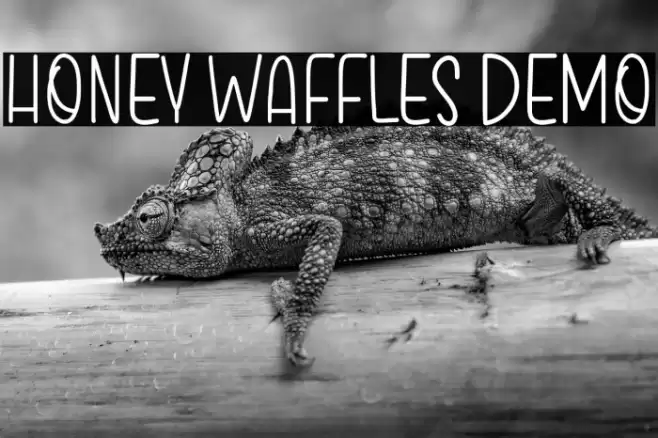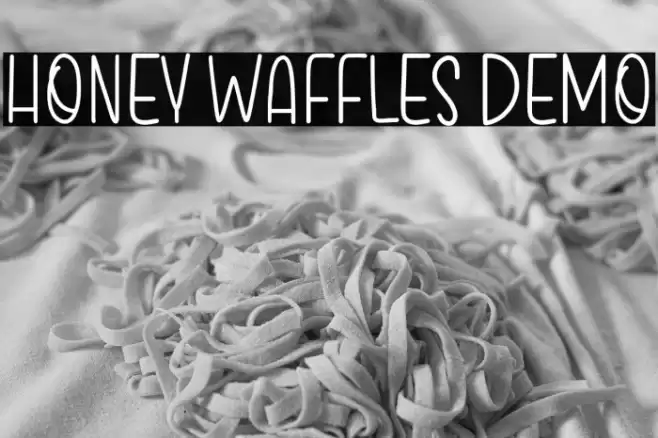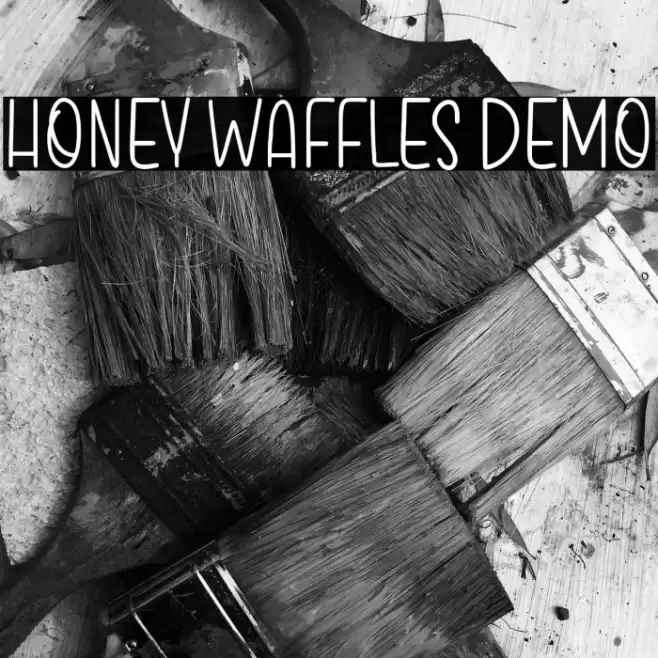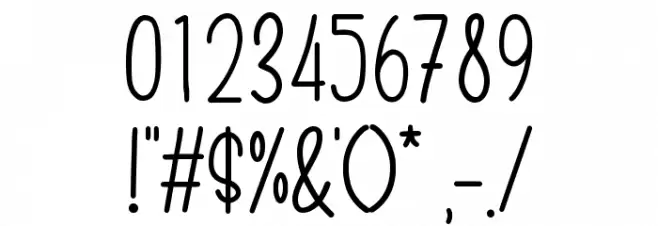
Honey Waffles Demo Font
Honey Waffles Demo Description
This font features a playful and whimsical design with a handwritten style. The characters are tall and narrow, with a slight slant that adds a casual and friendly feel. The strokes are consistent in width, giving it a clean and uniform appearance. The rounded edges and smooth curves contribute to its approachable and informal look. The font includes both uppercase and lowercase letters, numerals, and a variety of special characters, making it versatile for different uses. Its unique style is suitable for projects that require a personal touch or a fun and engaging aesthetic.
A playful handwritten font with tall, narrow characters and rounded edges from Regular fonts.
- Proposed Projects: Ideal for greeting cards, children's books, playful branding, and social media graphics.
- Overall Style: Casual
- Use Case: Headlines, Logos, Informal text